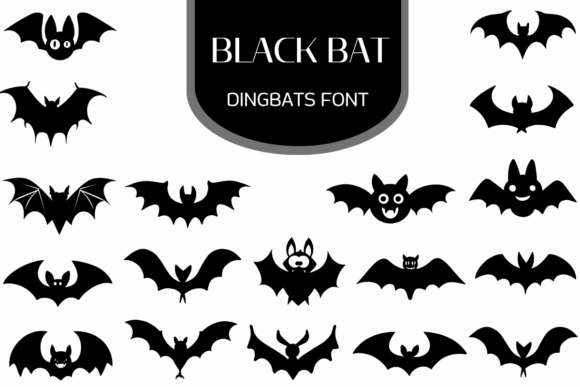
The Spooky Charm of Black Bat Font: A Designer’s Delight
I still remember the time I was working on a Halloween-themed project for a client, and I just couldn’t find the right font to match the spooky vibe. The design was almost complete, but it was missing that special something to make it pop. That’s when I stumbled upon the Black Bat Font, a collection of bat silhouettes that instantly added a playful yet eerie touch to my design. If you’re a designer, crafter, or creative hobbyist looking for a unique font to elevate your projects, you’re in the right place!
A Closer Look at Black Bat Font
The Black Bat Font, also known as Black Bat Dingbats Font, is a fascinating collection of bat silhouettes perfect for Halloween-themed projects and gothic-inspired designs. This font includes a variety of bat shapes, ranging from cute and cartoonish to creepy and mysterious, offering diverse stylistic choices. Whether you’re working on invitations, party decor, merchandise, posters, or digital content, this dingbat font brings instant character to any spooky design.
What I Love About Black Bat Font
• ✨ Vector-based glyphs: Each glyph is vector-based, which means they can be resized without losing quality, making it great for print and digital use alike.
• ✅ Diverse bat silhouettes: The font includes a wide range of bat shapes, from cute and playful to creepy and mysterious.
• 🔍 Easily searchable glyphs: The font comes with a glyph panel, making it easy to find and insert the perfect bat silhouette into your design.
While I absolutely love the Black Bat Font, there are a few quirks to consider:
• 🤔 Limited character set: As a dingbat font, it only includes bat silhouettes, which might limit its use for projects requiring a wide range of characters.
The Story Behind Black Bat Font
The Black Bat Font was created by a freelance designer who wanted to capture the essence of Halloween in a unique and playful way. Inspired by the mysterious and often misunderstood world of bats, the designer aimed to create a font that would bring a touch of spookiness to any design. With its diverse range of bat silhouettes, the Black Bat Font has become a popular choice among designers and crafters looking for a font that adds character to their projects.